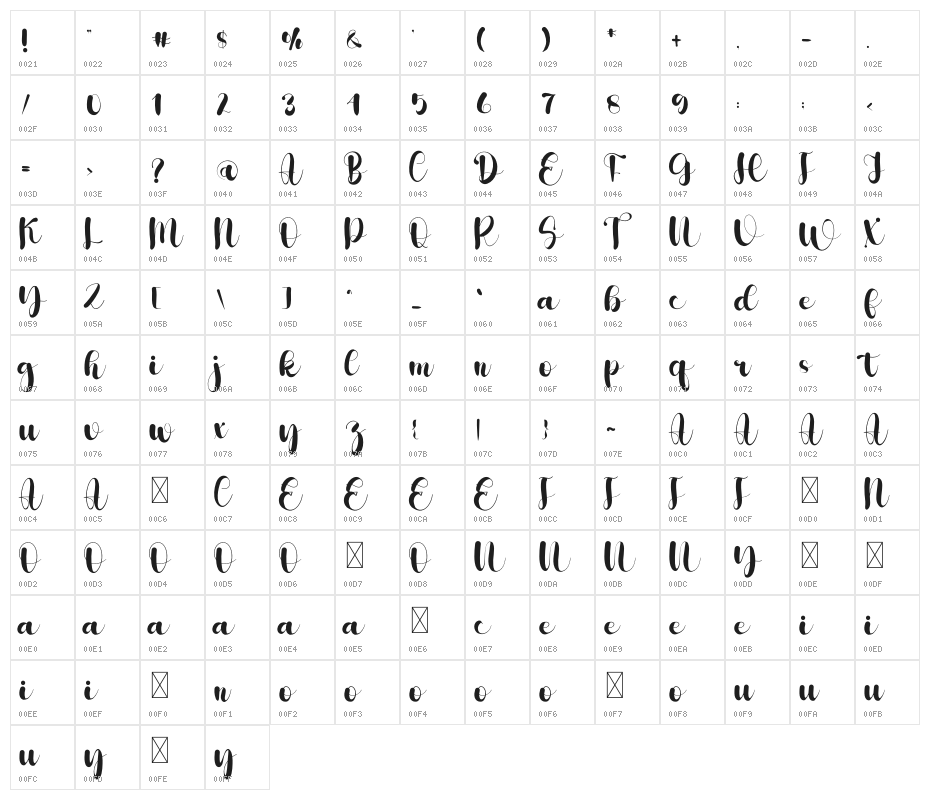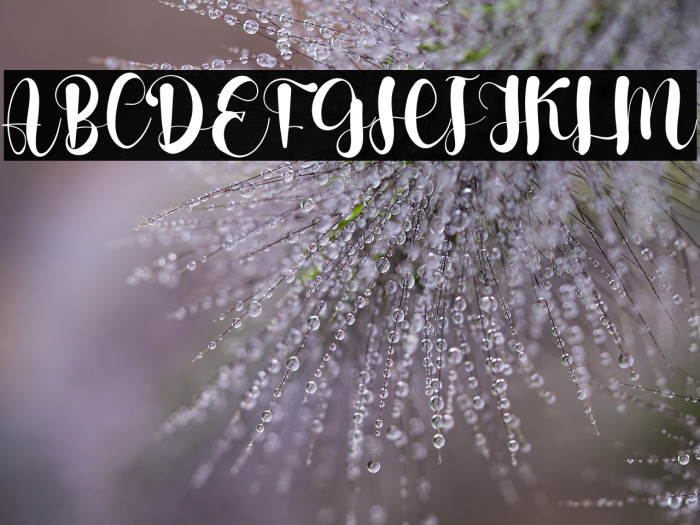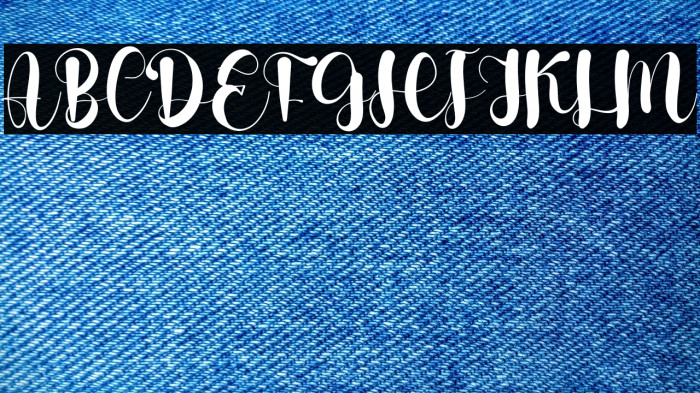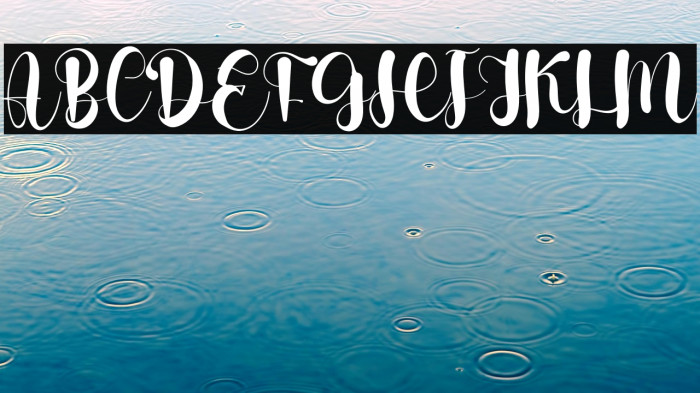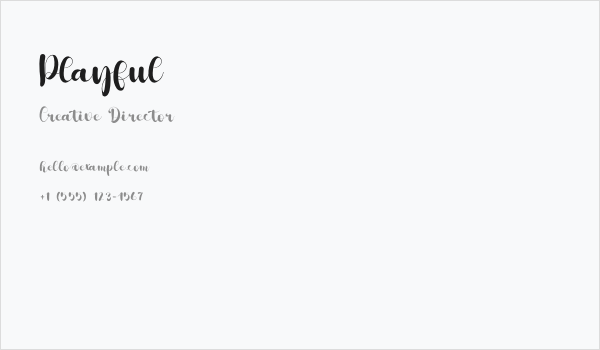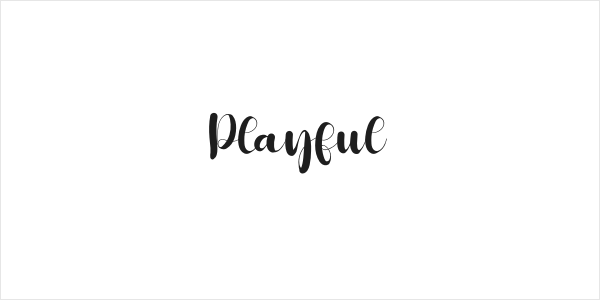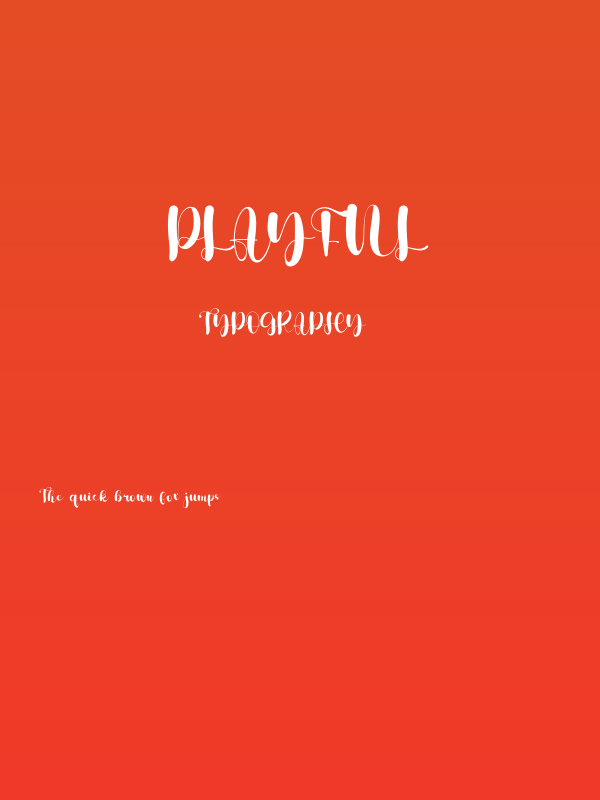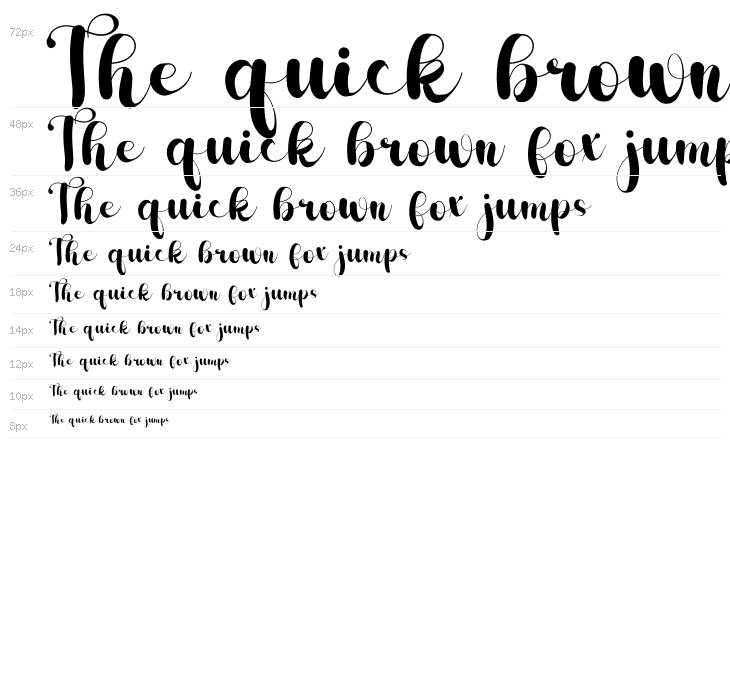
Playful Font
Playful Description
This font exhibits a playful and whimsical style, characterized by its flowing, cursive script. The letters are interconnected with elegant loops and swirls, giving it a lively and dynamic appearance. The strokes are bold and expressive, with a high contrast between thick and thin lines, adding to its decorative appeal. The uppercase letters are particularly ornate, while the lowercase letters maintain a consistent rhythm and flow. The numbers and special characters are designed to match the overall playful aesthetic, making it suitable for creative and informal applications.
| Proposed Projects | Ideal for invitations, greeting cards, playful branding, and decorative headings. |